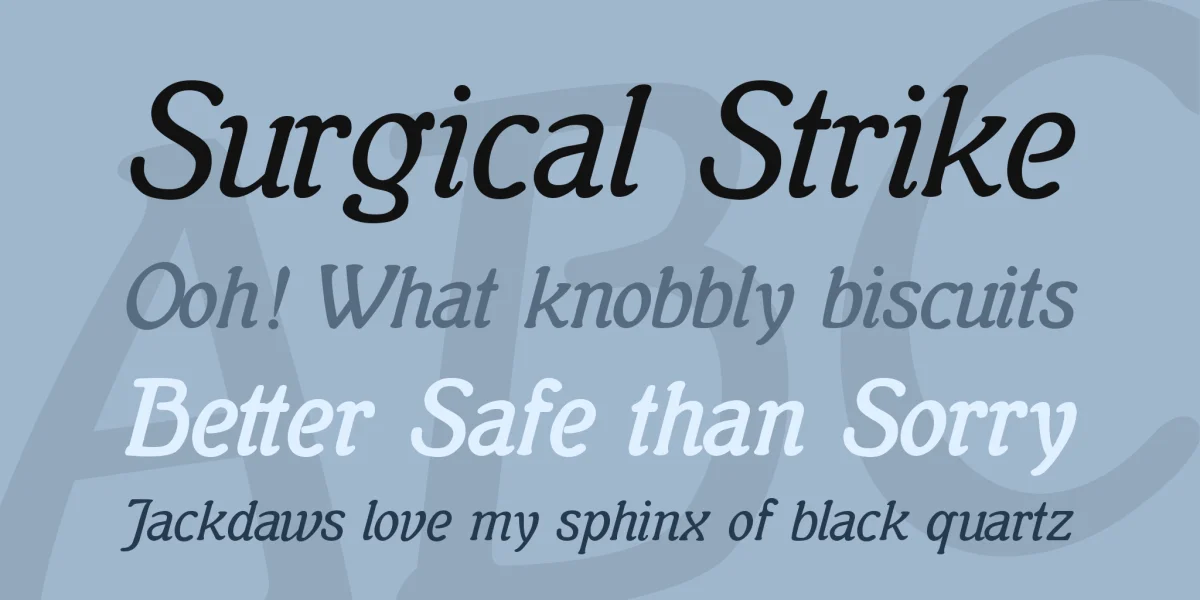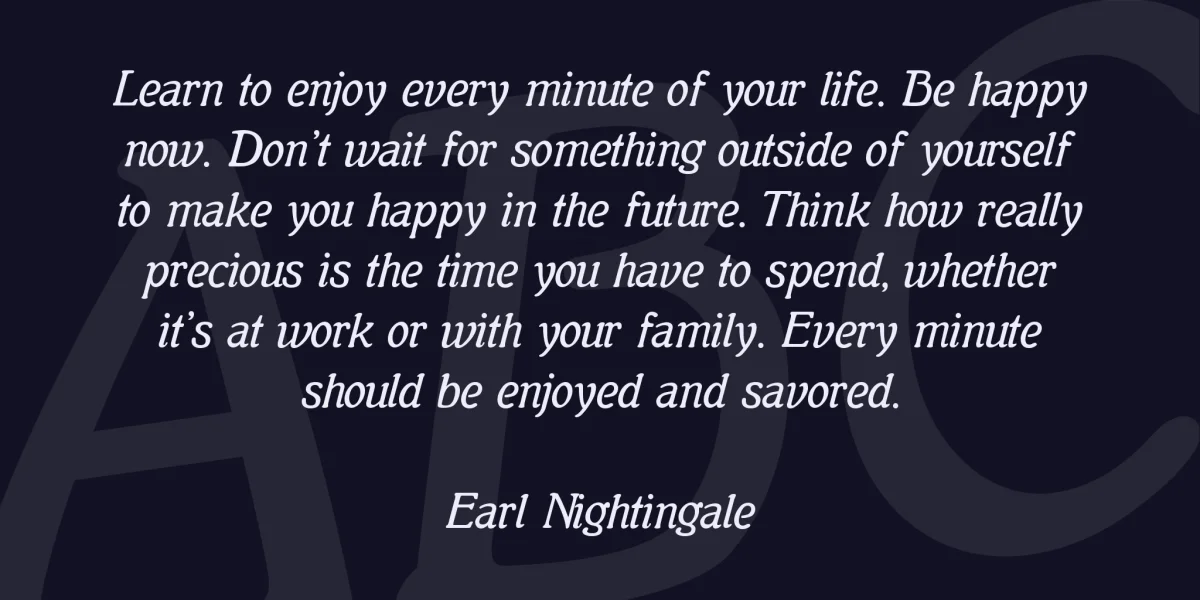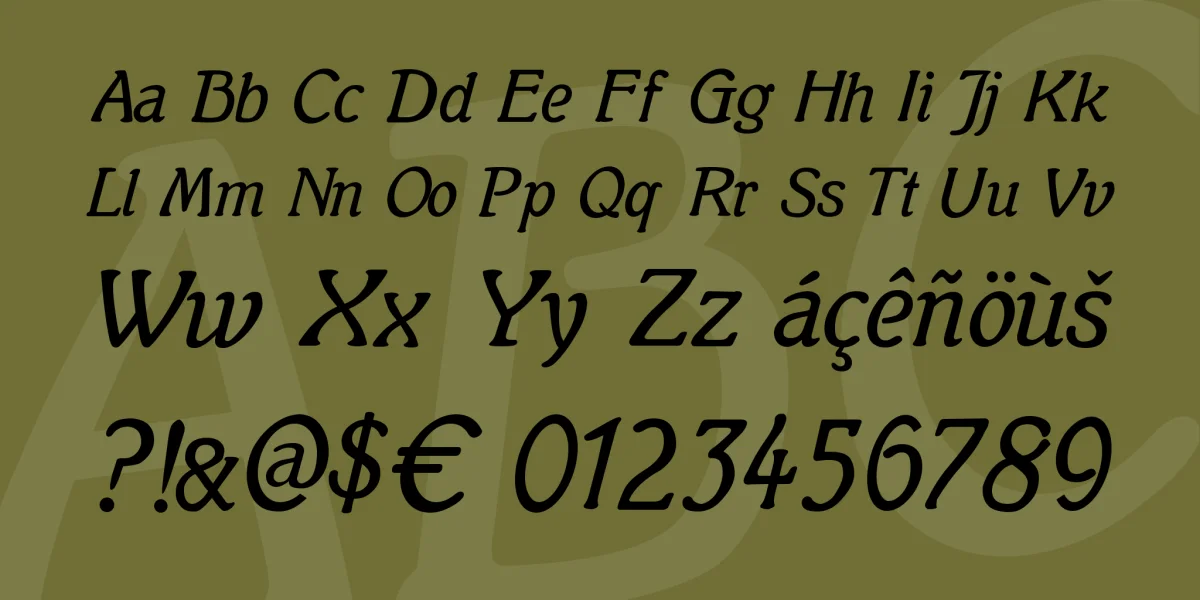
In my writing Nathan, which I created for the silent film "Nathan the Wise", now followed by another font for the renovation of a silent film.
This time it is the movie "Mother Krause's Journey to Happiness" by Phil (Piel) Jutzi. the rolling of the Prometheus Filmbroduktionsgesellschaft film is one of the most important representatives of the so-called proletarian film. The film is based on motives of the Berlin painter Heinrich Zille milieu. The titles, some of which in the original were missing and had to be replaced, are provided in the Berlin dialect to give the dialogue an authentic touch. The film, which was shot in Berlin Wedding, had on 30 December 1929 premiere. He is one of the films banned by the Nazis seizing power.
1975 Rainer Werner Fassbinder turned a remake under the title "Mother Küsters Goes to Heaven".